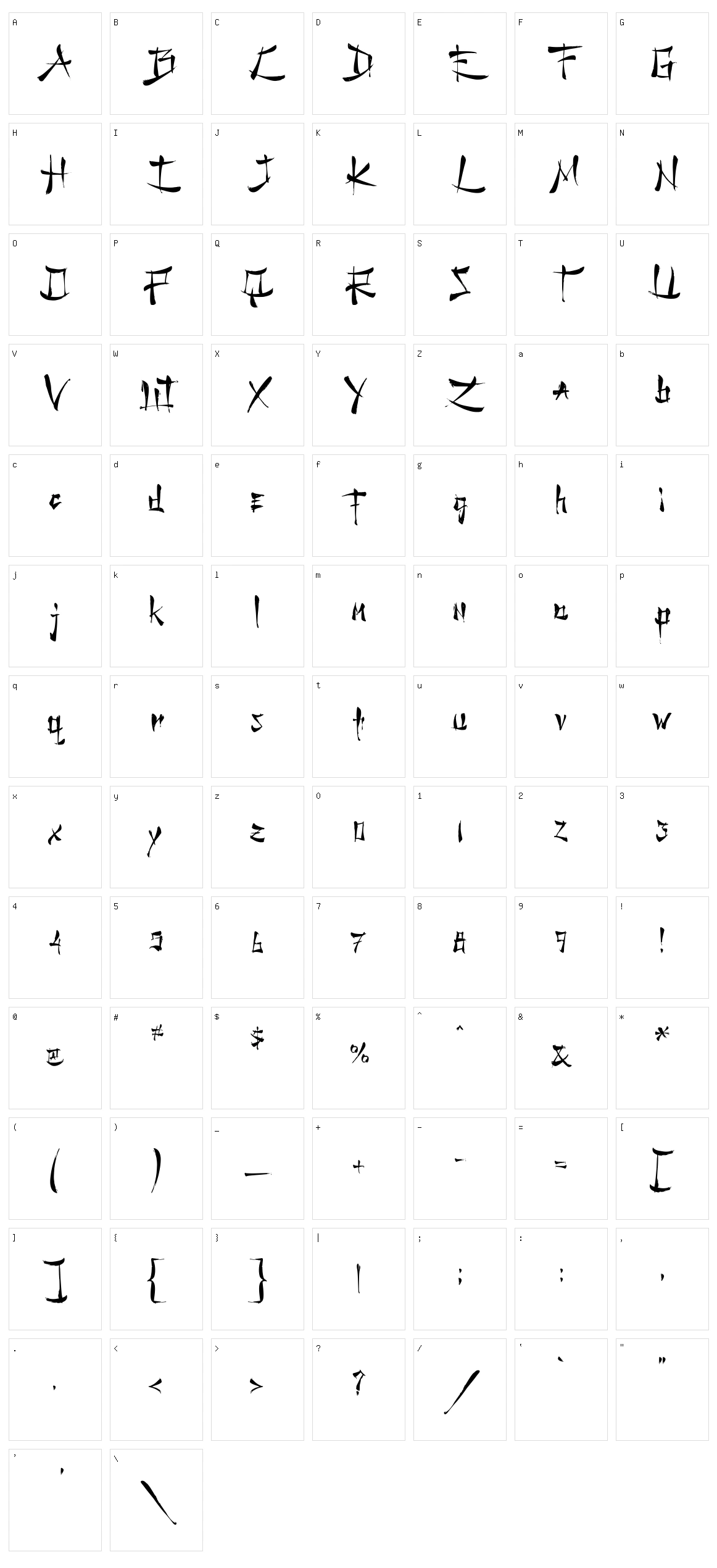
The free font Water Dragon is carefully designed by Cat.B, showcasing a thoughtful balance of creativity and usability and falls under the Asian font style. When you download the ZIP file, it contains only 54.28 KB of font files, making it lightweight and quick to download. Please review the license details below to understand permitted usage and distribution rights. If license information is not available, we recommend using this font for personal projects only or contacting the author directly for commercial usage permissions.